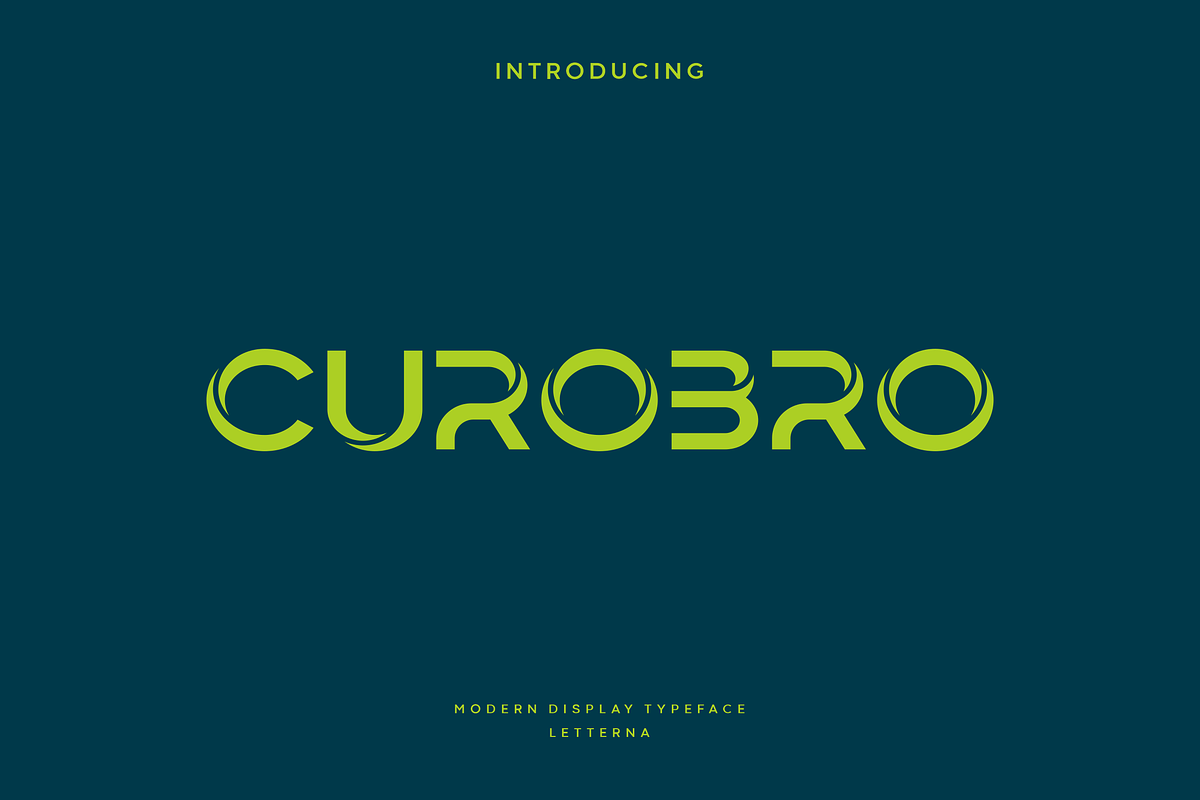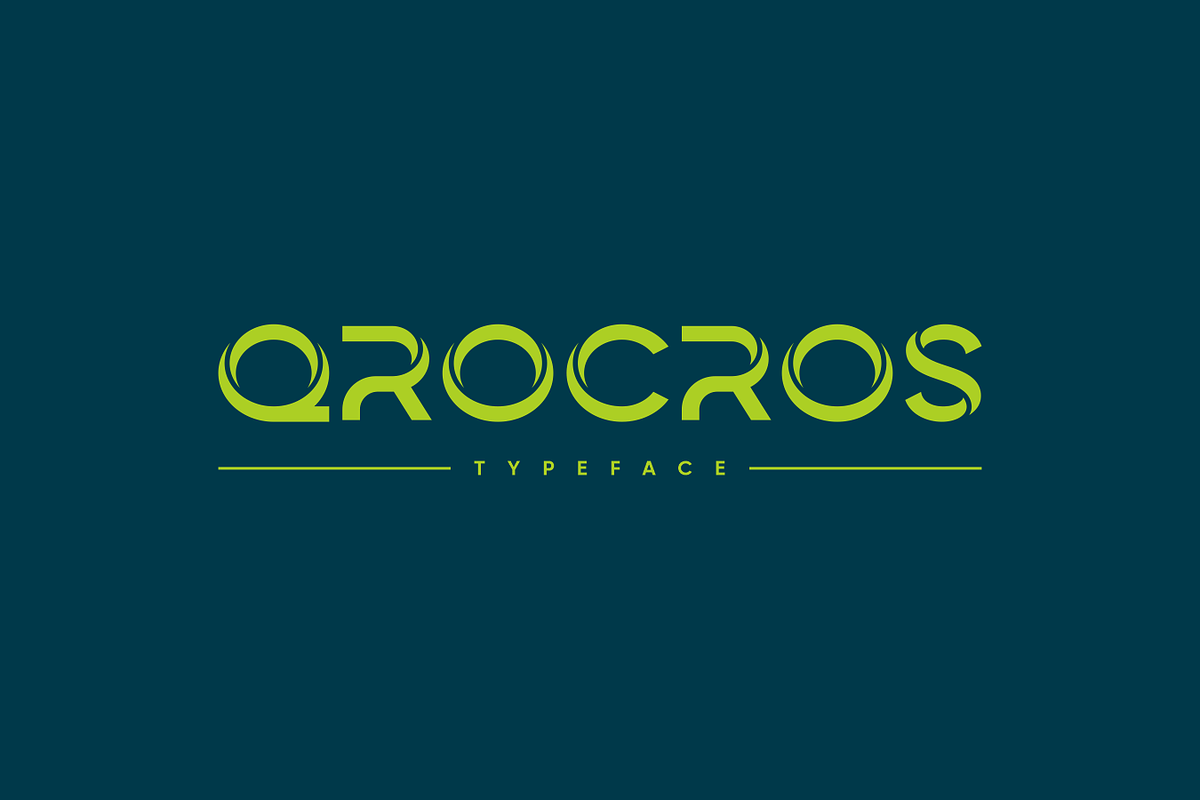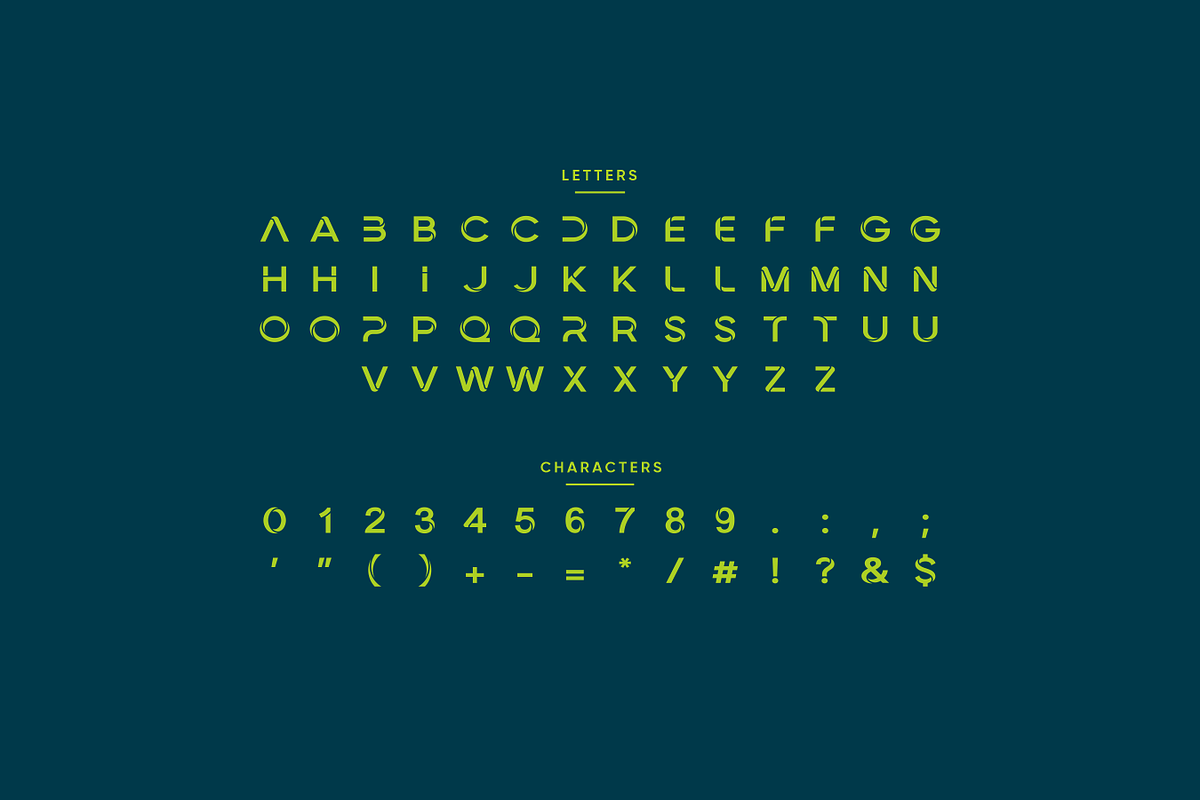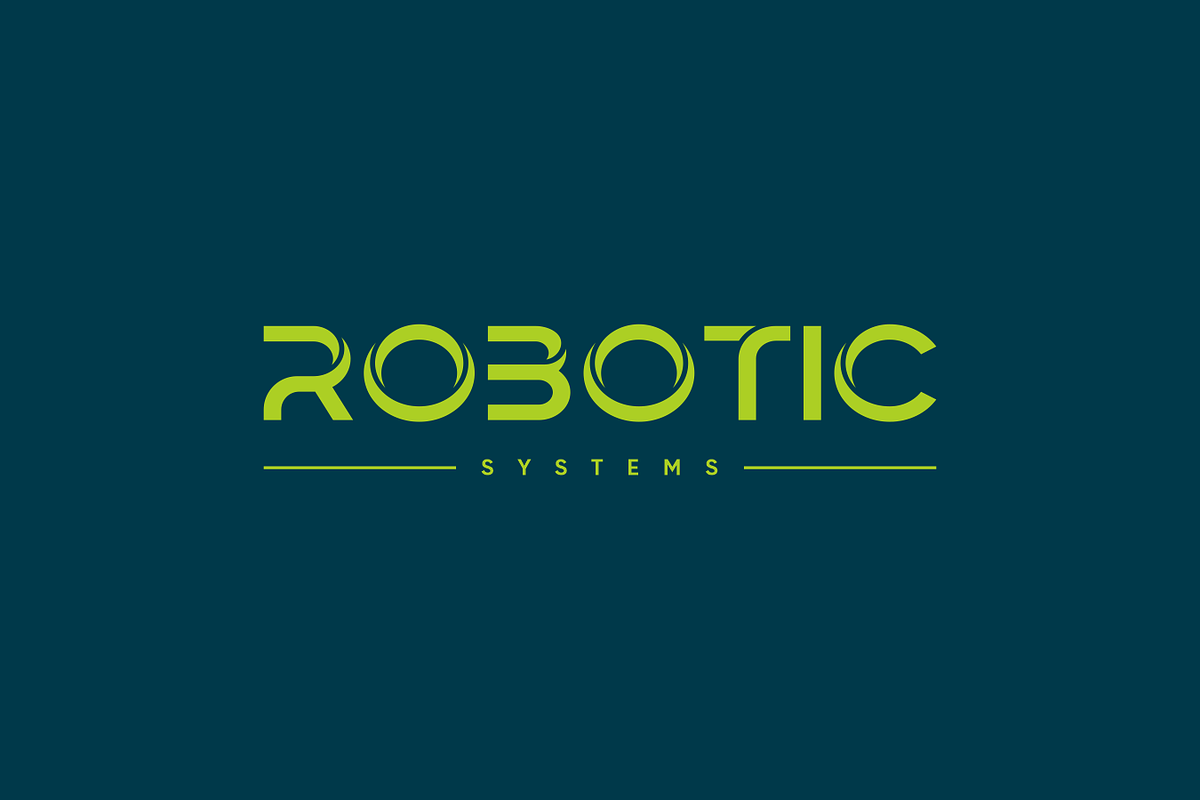
Curobro - Modern Display Typeface
Curobro is a modern technology logo font designed to bring a futuristic edge to your branding projects. Inspired by the sleek lines of cutting-edge tech, this font is perfect for logos, digital interfaces, and branding that demand a clean and innovative look. Curobro combines precision and creativity, making it ideal for tech companies, startups, or futuristic projects.